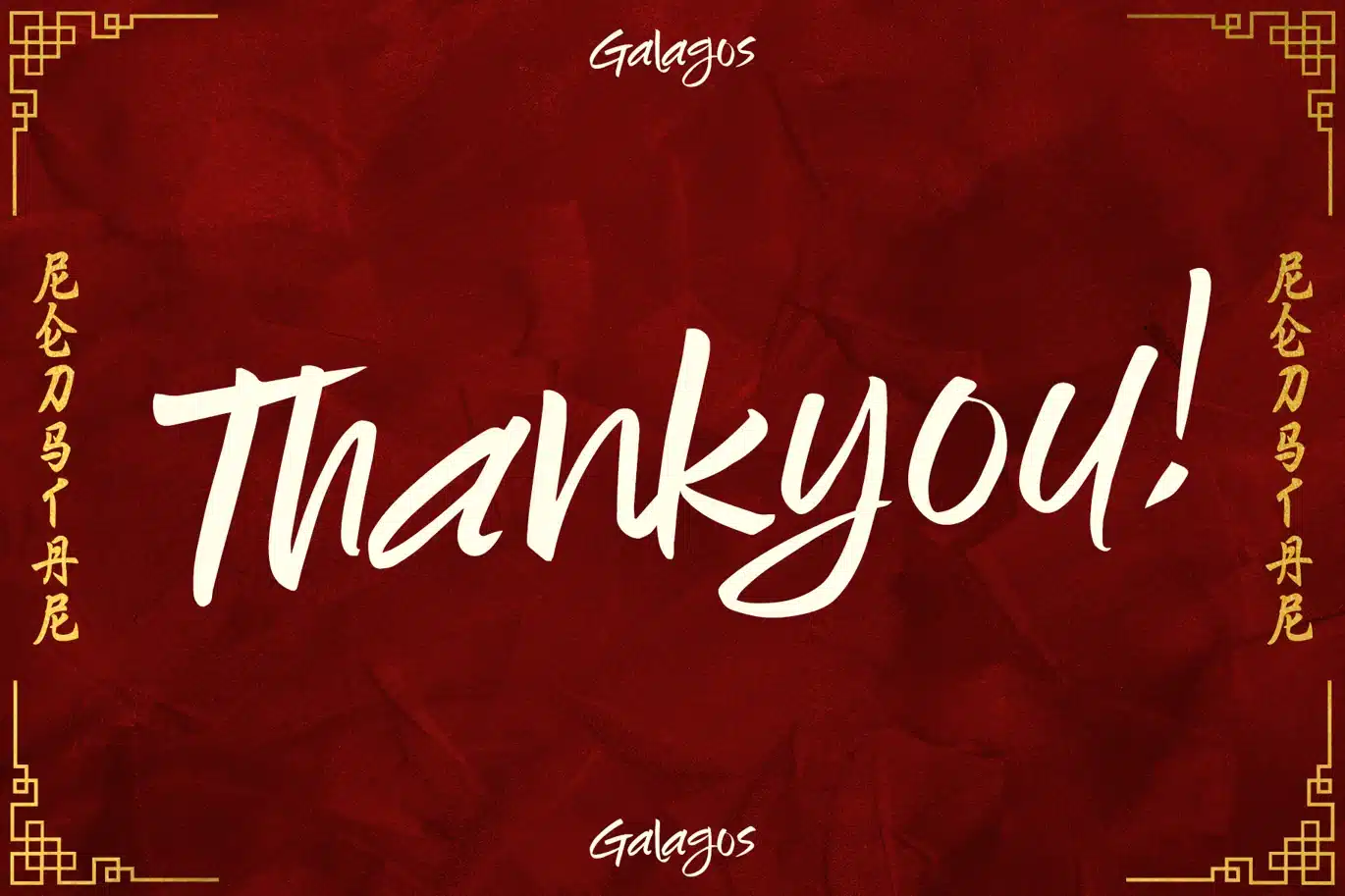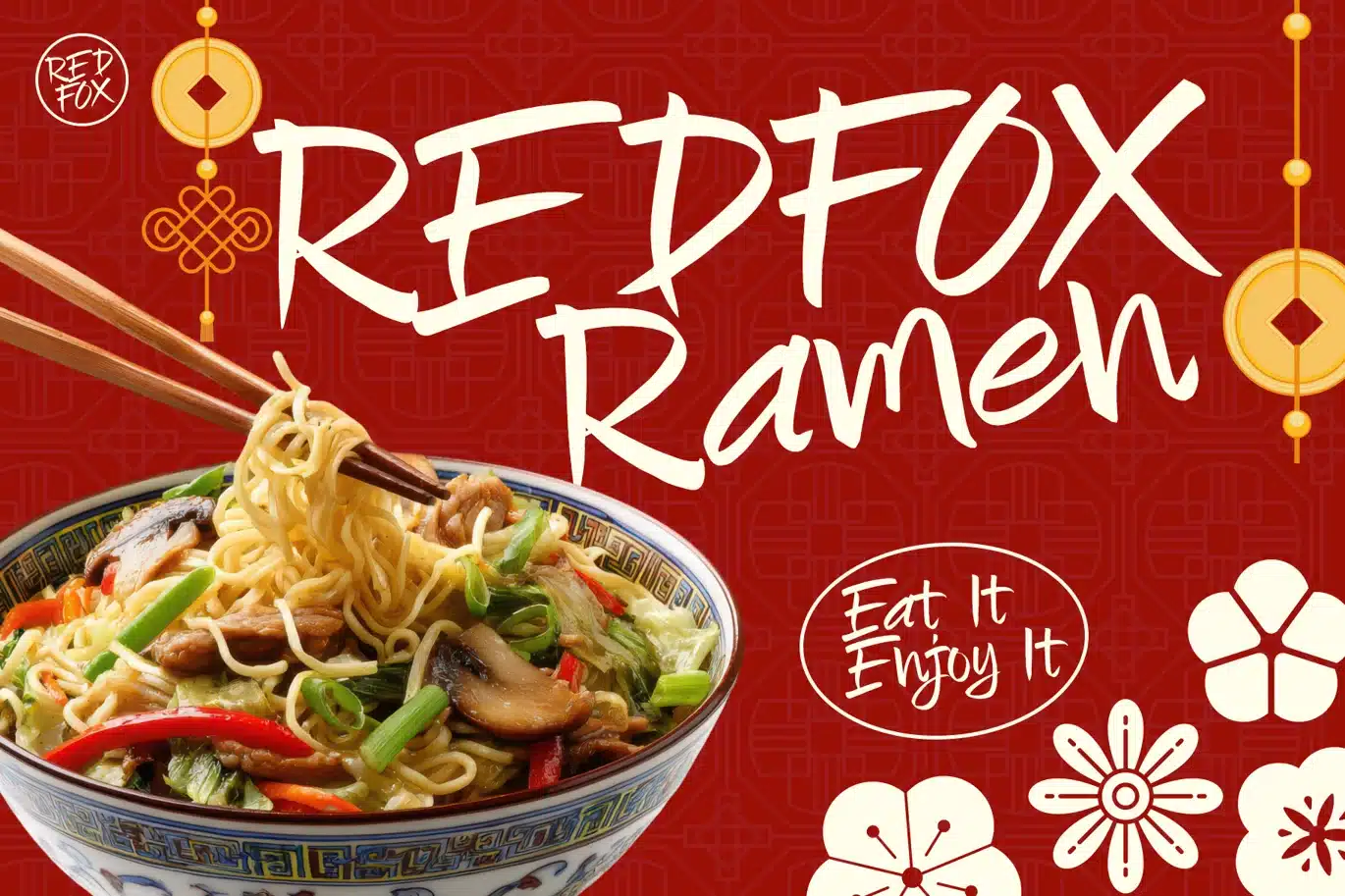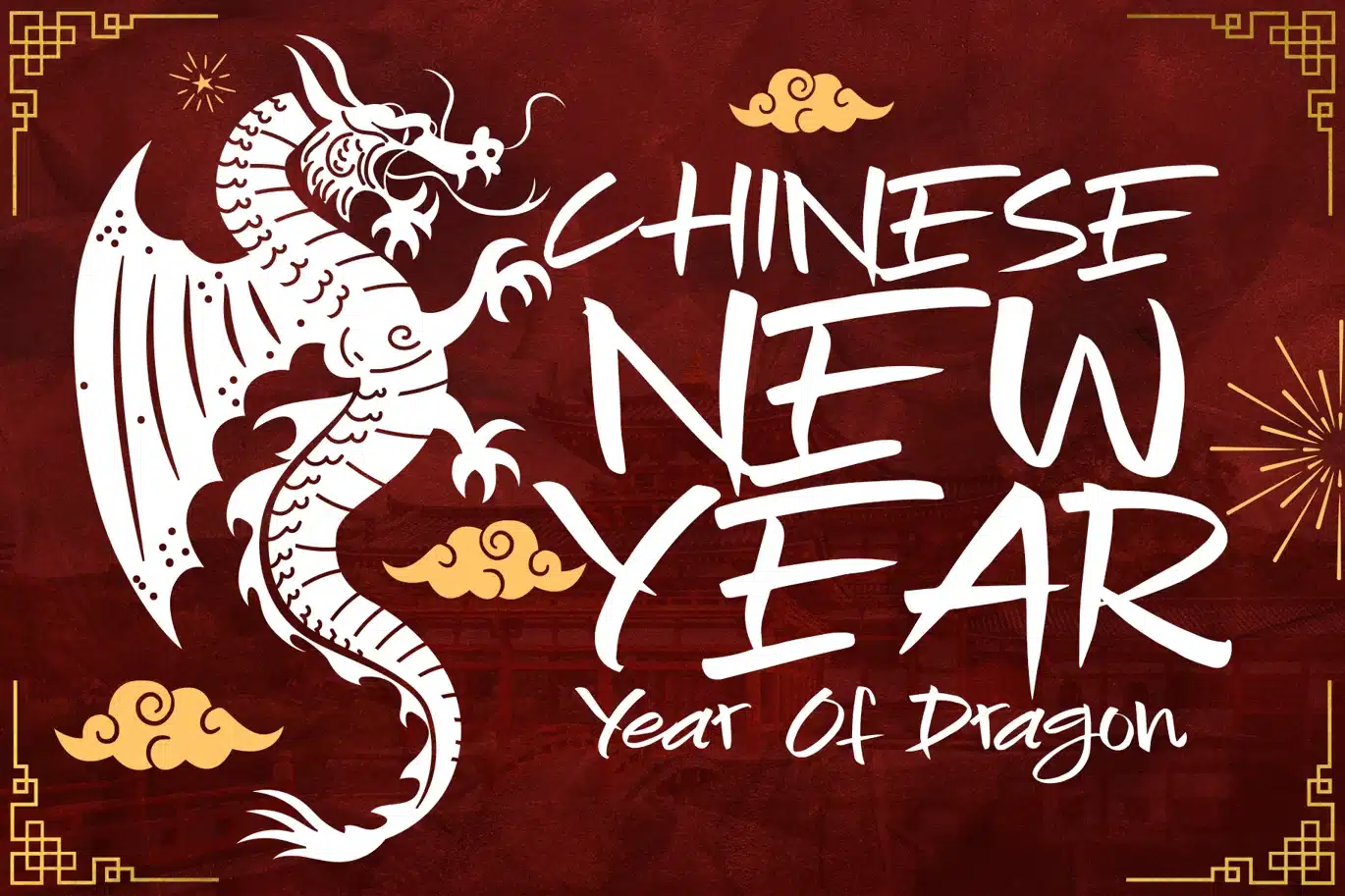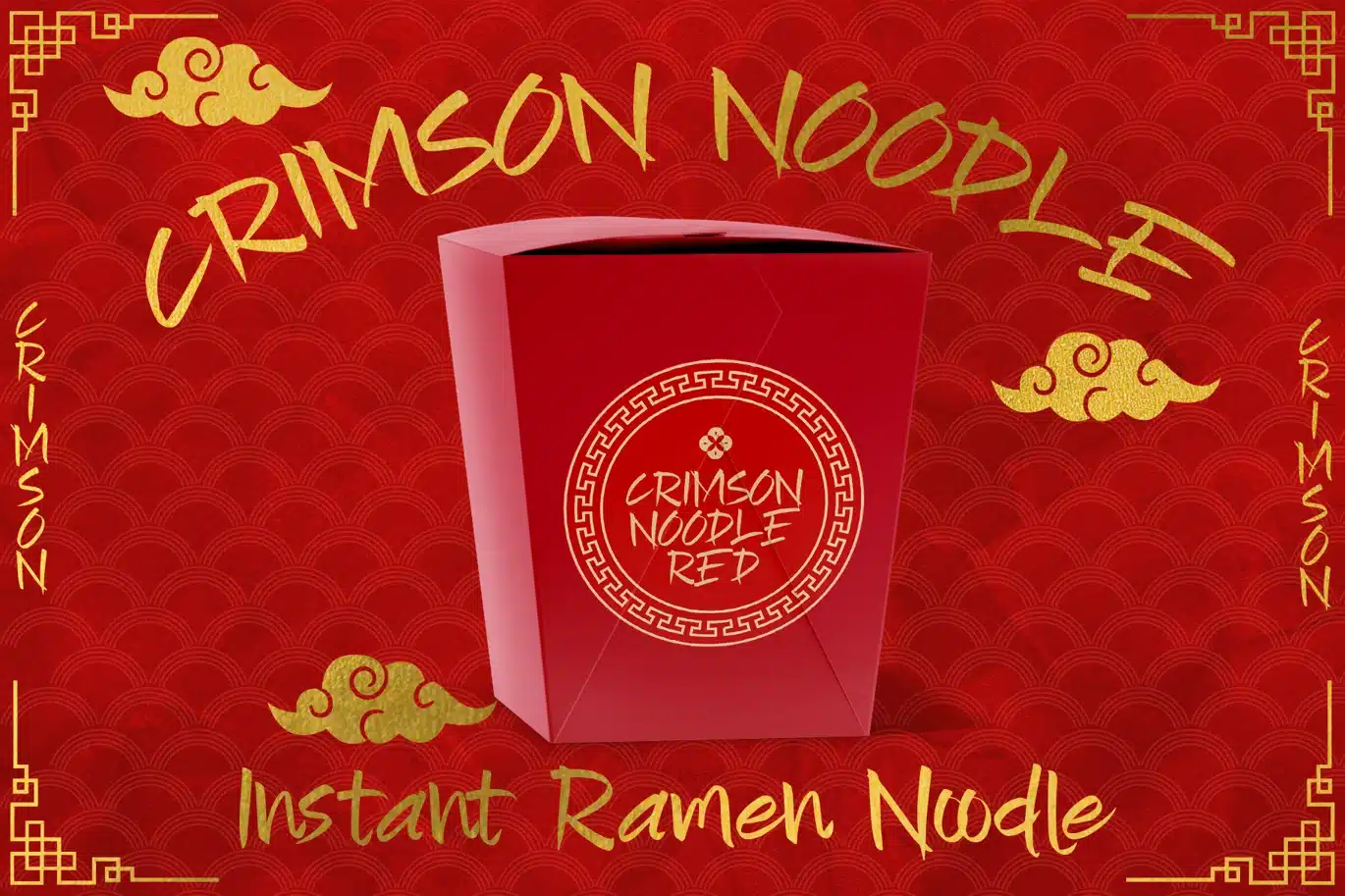
Festive Asian Font – Galagos
Galagos is a festive Asian-inspired brush font that captures the expressive energy of traditional hand lettering with a modern, playful twist. Featuring dynamic strokes, natural brush textures, and fluid movement, this font brings a bold and lively personality to your designs.
Perfect for Chinese New Year themes, Asian-inspired branding, food packaging, restaurant menus, posters, and cultural event promotions, Galagos delivers an authentic handcrafted feel while maintaining readability and versatility.
This font includes uppercase & lowercase letters, numerals, punctuation, ligatures, and stylistic alternates, giving you creative flexibility for unique and expressive typography compositions.